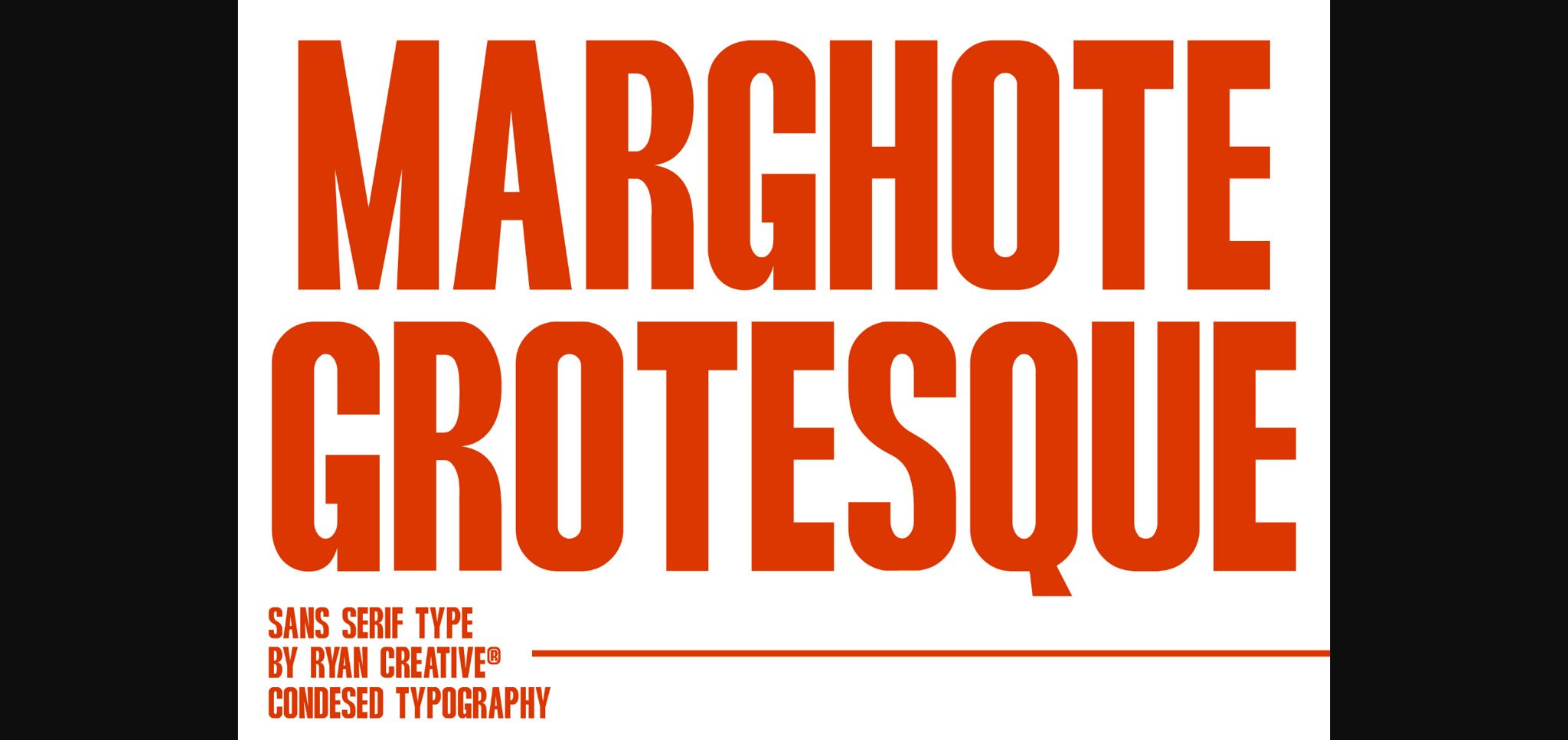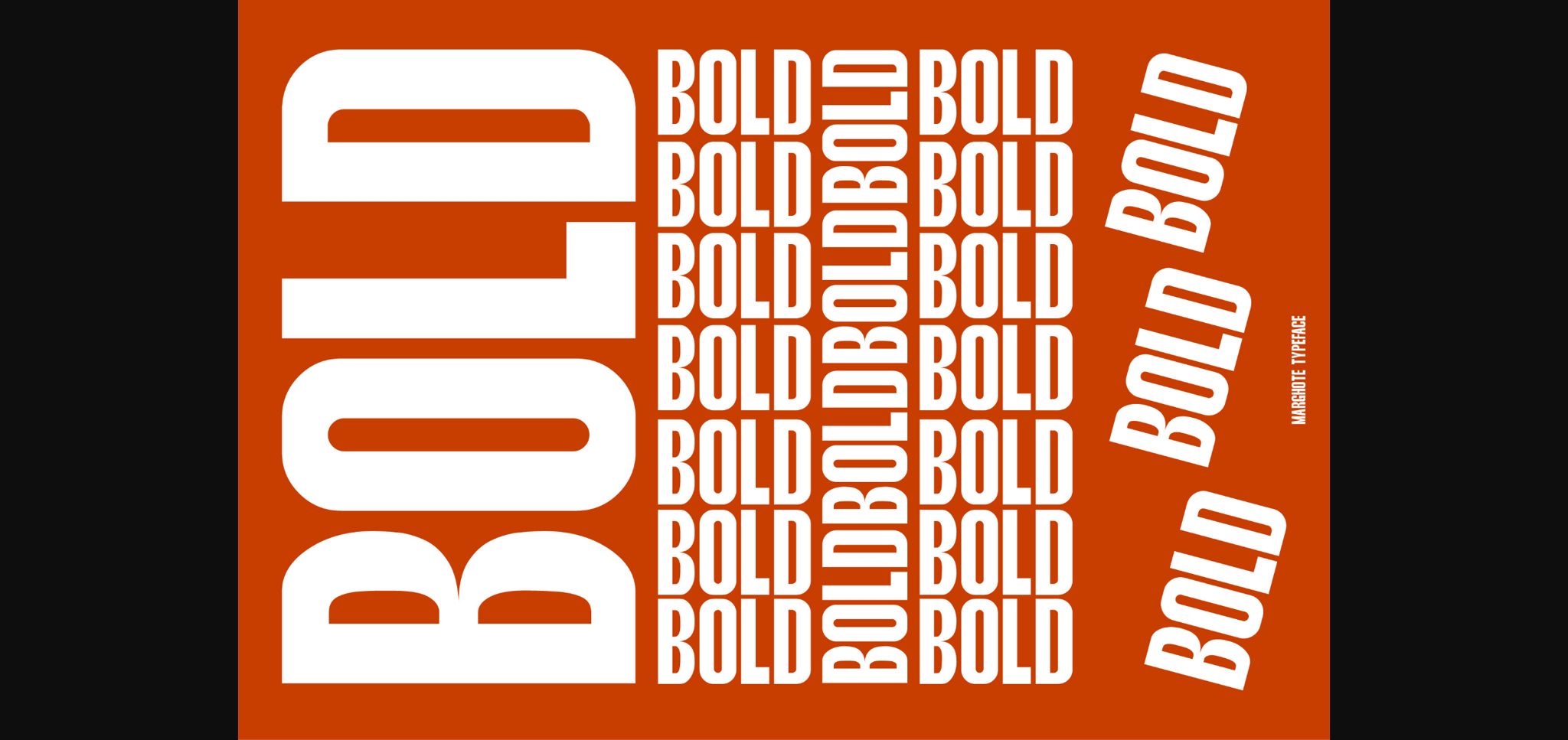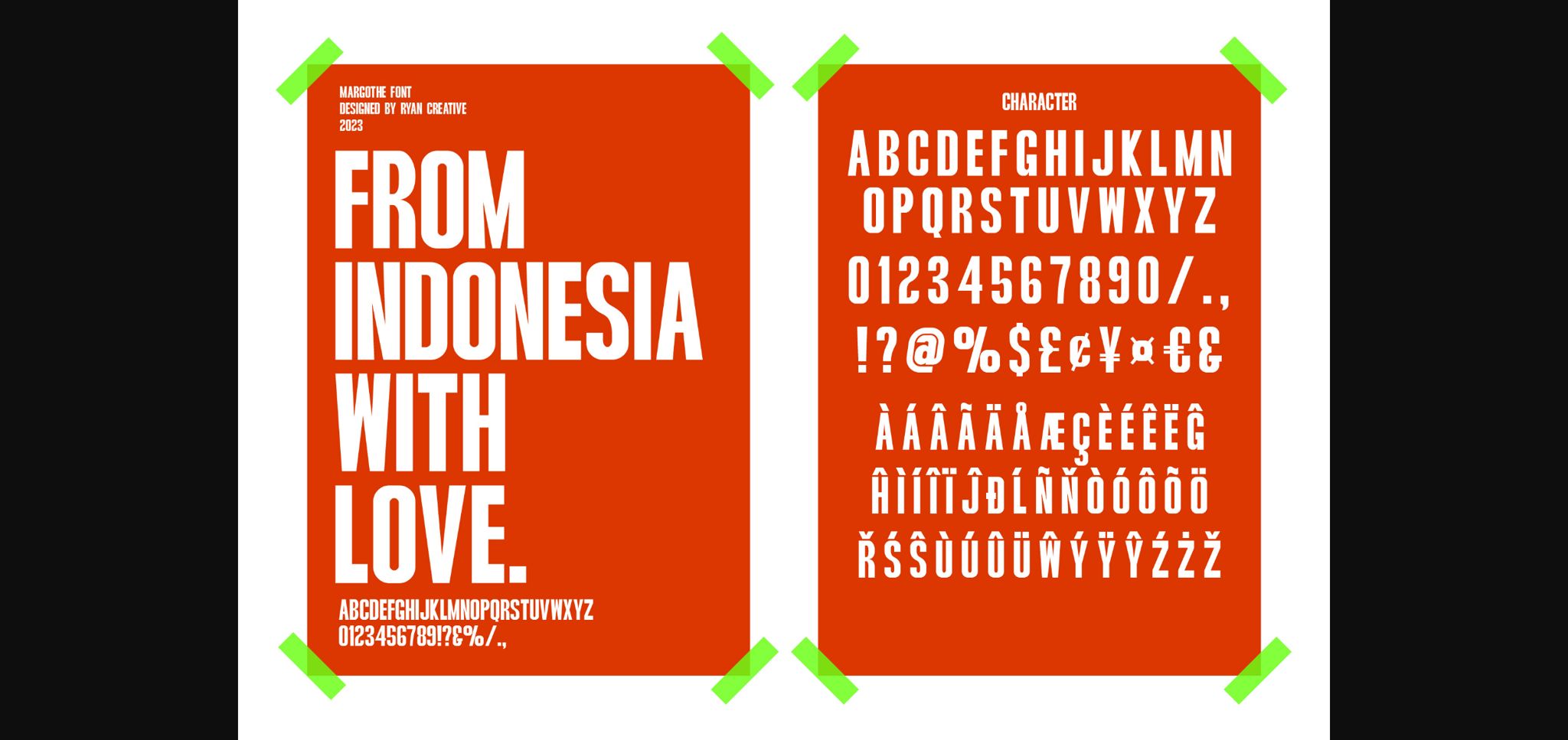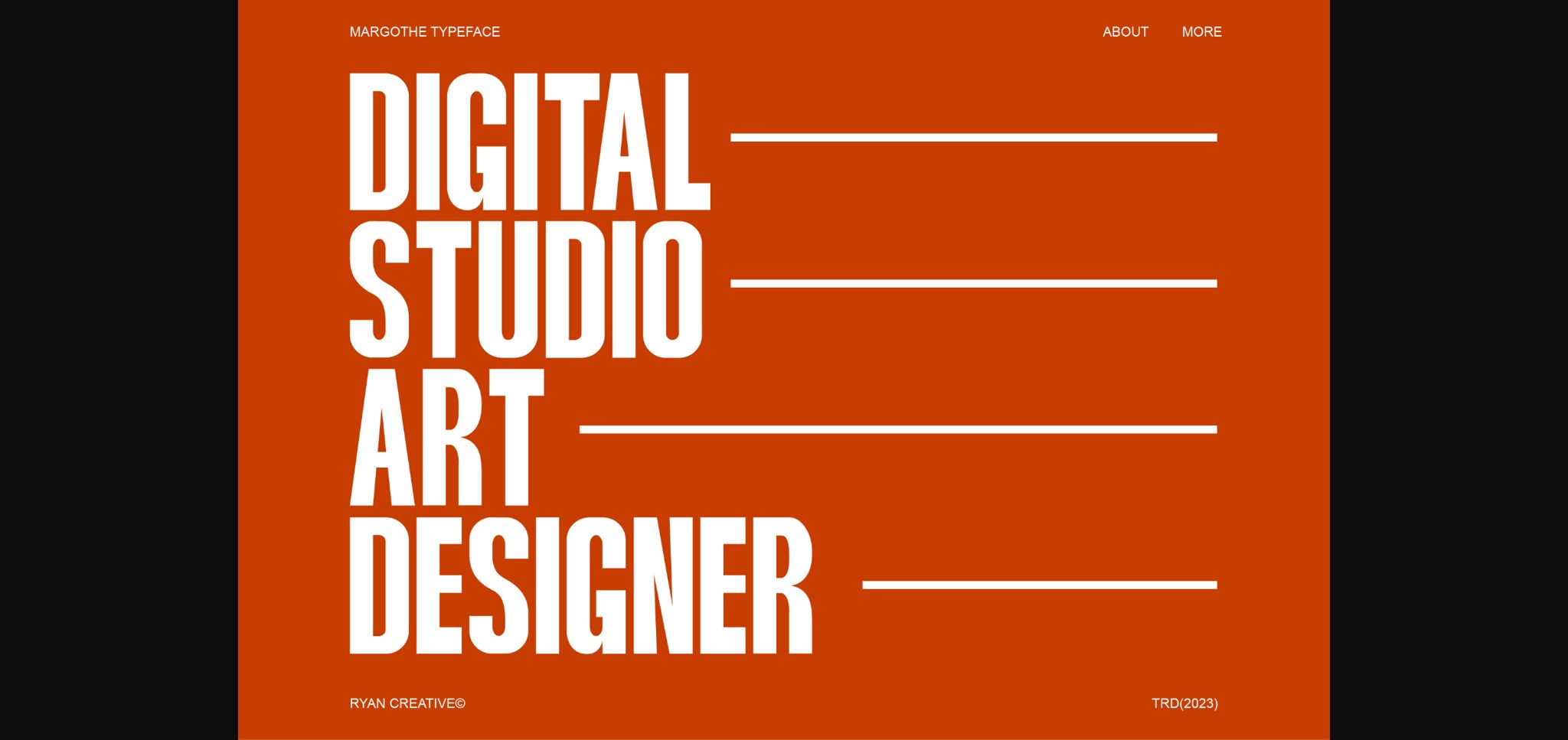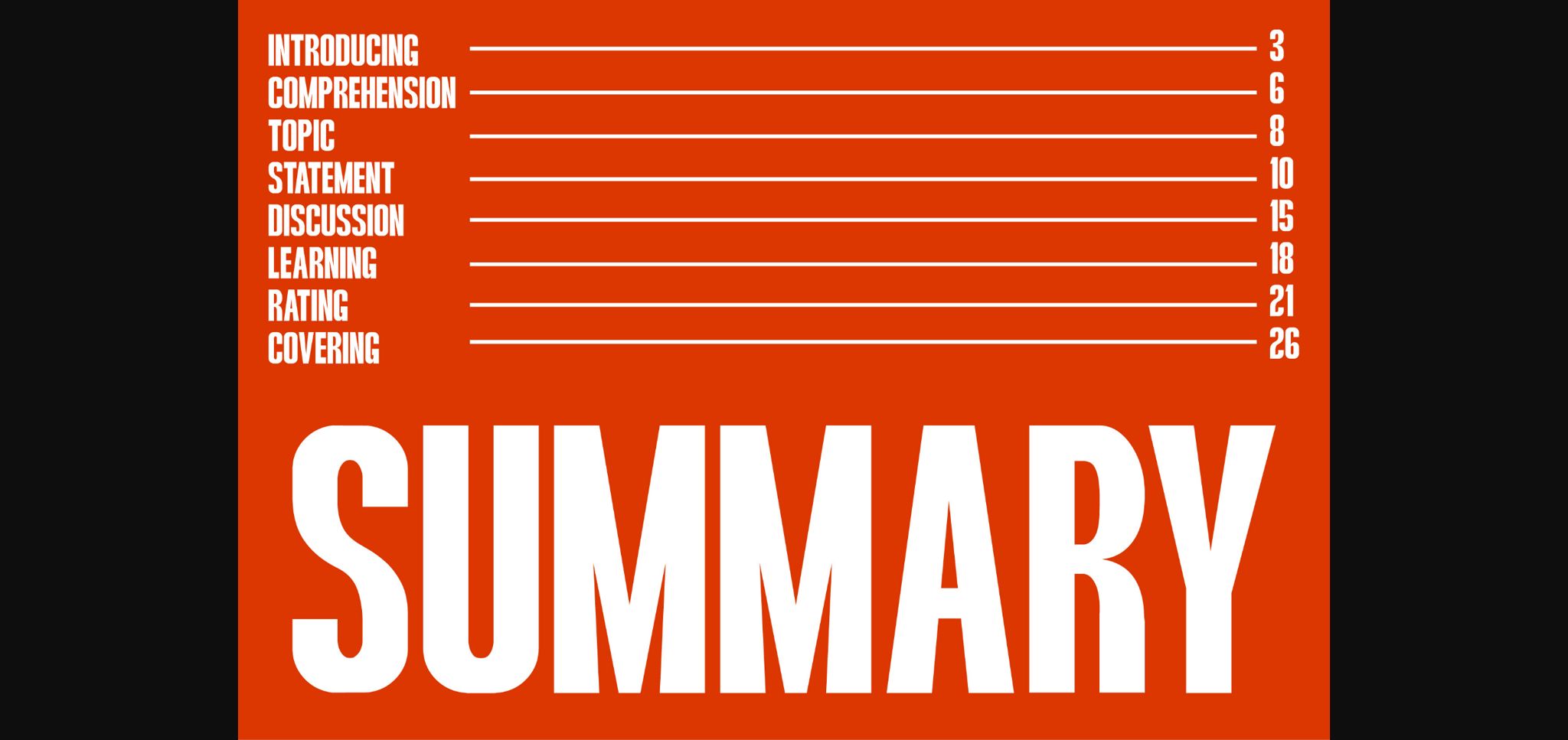
About Marghote Font
Marghote has a simple design and grotesque style. This font is bold and condensed, making it look more minimalist and easy to read. Marghote can be used in modern and contemporary designs and is suitable for use in various fashion media, posters, magazines, typography, and other digital media.